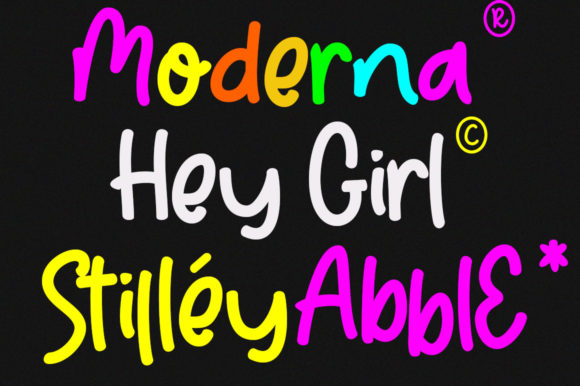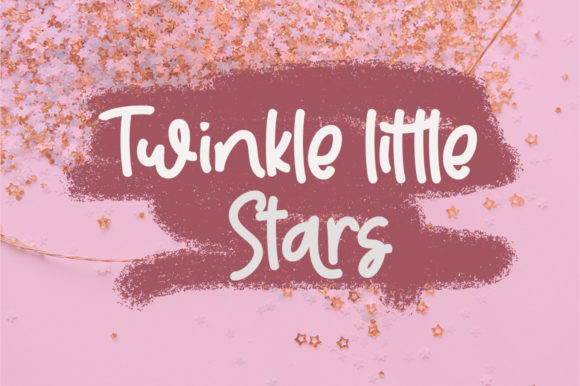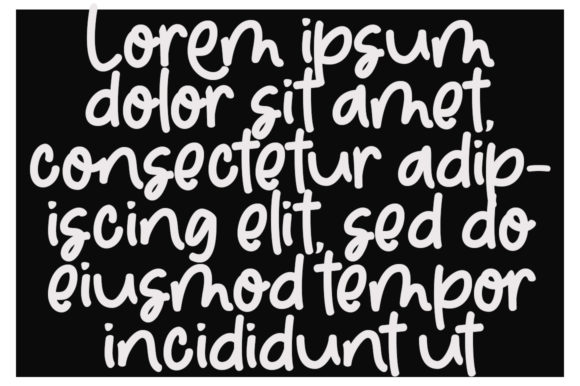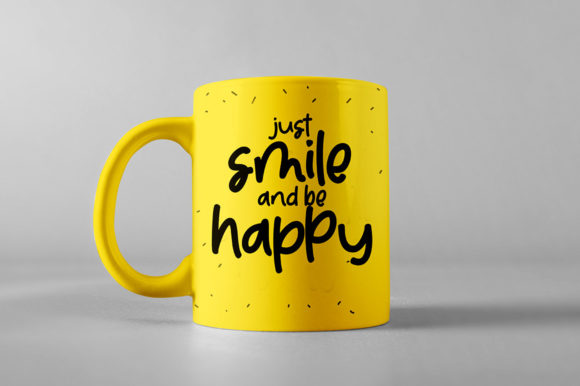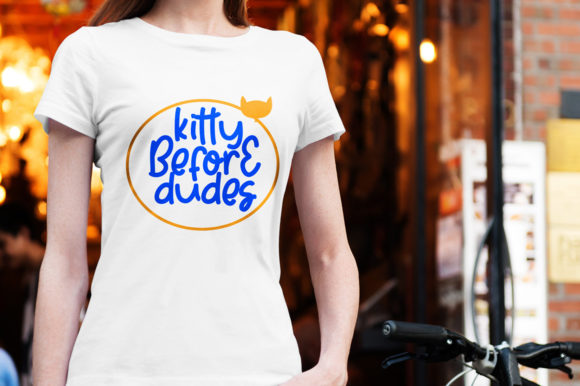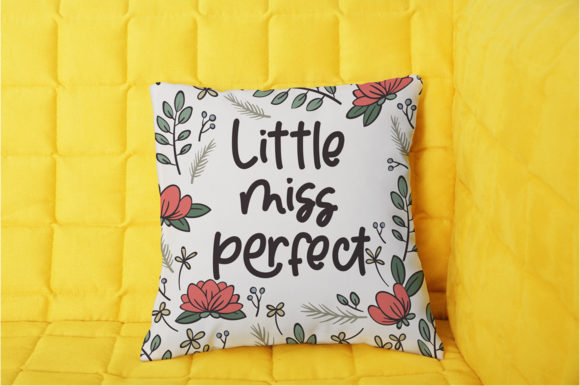
Introduction to Real Delight Font
As a designer, have you ever found yourself stuck in a creative rut, yearning for that perfect font to elevate your project from bland to grand? I know I have. One moment that stands out in my mind was when I stumbled upon the Real Delight Font, and suddenly, my design woes vanished like magic. This cool and natural handwritten font is the epitome of high quality, making it an instant favorite among designers.
The Real Delight Font is more than just a pretty face – it’s a versatile design resource that can be used for a wide range of creative projects, from logos and labels to branding and more. Its transparent background and free download option make it an attractive choice for designers looking to add a relaxed touch to their work.
Key Features of Real Delight Font
- High-quality design with a unique, elegant style, perfect for creative projects.
- Comes in a transparent background, allowing for easy customization and integration into various design resources.
- Designed with a high resolution of 300 DPI, ensuring crisp and clear typography in both digital and print media.
- Features a clean and minimalist aesthetic, ideal for modern design applications and creative endeavors.
Honest Review: Real Delight Font
I recently had the chance to work with the Real Delight Font, and I must say, it’s a high-quality addition to any designer’s toolkit. The transparent background and elegant script style make it perfect for creative projects that require a touch of sophistication.
Here are some things that work well with this font:
- ✨ Beautiful script style that’s perfect for invitations, wedding cards, or any other special occasion.
- ✨ High-quality vector graphics that ensure crisp and clear text even at larger sizes.
While the Real Delight Font is an excellent design resource, there are a few limitations to keep in mind:
- ⚠️ Limited language support, so it may not be suitable for projects that require multiple languages.
- ⚠️ Some users may find the font too ornate for certain design projects.
Overall, I’m impressed with the Real Delight Font. It’s a great addition to any designer’s collection, and I’d highly recommend it for creative projects that require a high-quality, elegant font.
Tips and Use Cases
For the most out of Real Delight Font, use it sparingly and in conjunction with simple backgrounds or images. This font is perfect for creative projects that require elegance and sophistication, such as wedding invitations, luxury product packaging, or high-end business materials.